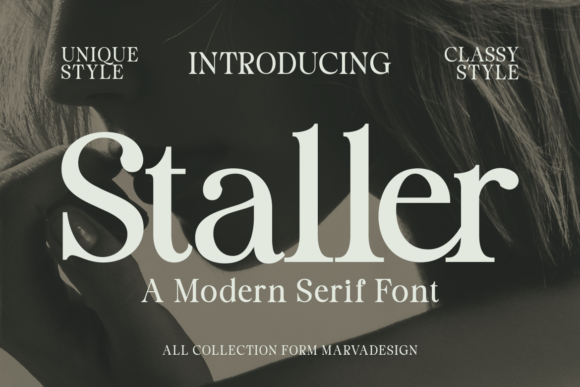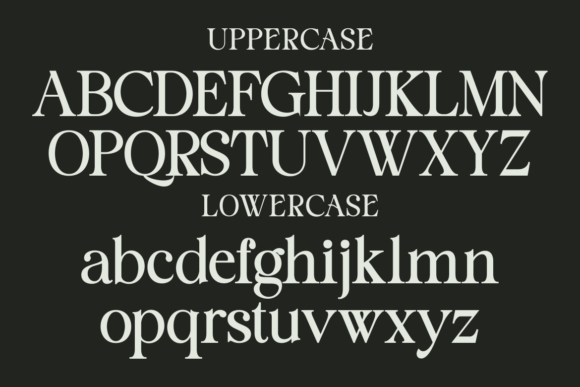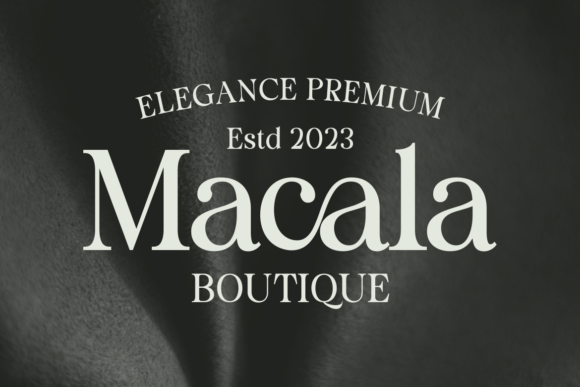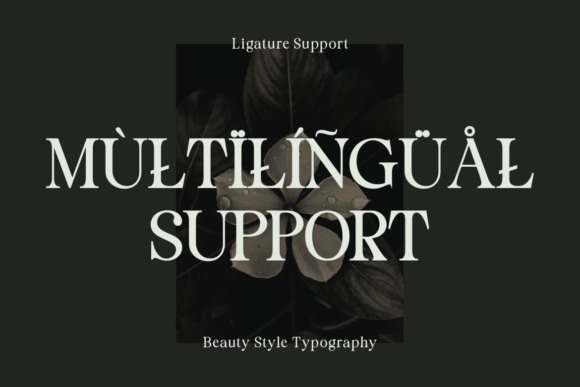
Staller Font
About the Staller Font
Add a touch of class to your work with the Staller Font, a truly exceptional typeface. Staller is a stylish serif font that seamlessly combines timeless sophistication with contemporary allure. Its meticulously crafted letterforms exude refined elegance, capturing the essence of classic beauty. Ideal for projects requiring a versatile and sophisticated typeface, Staller adds a touch of timeless grace to your designs.